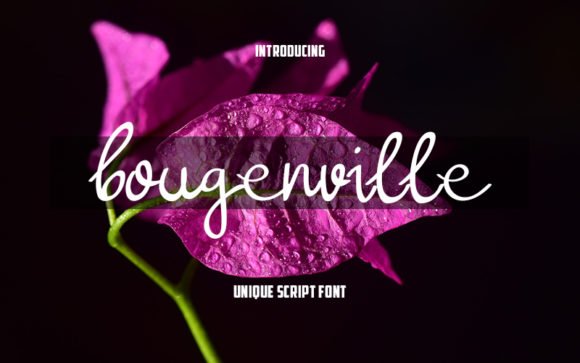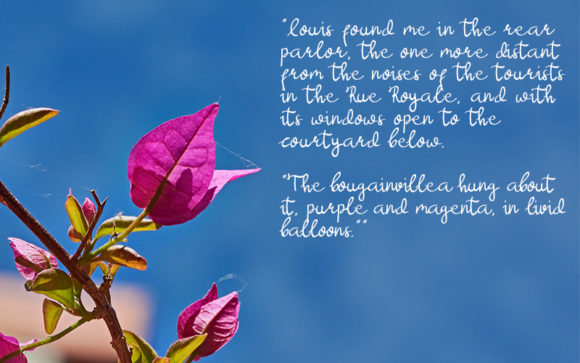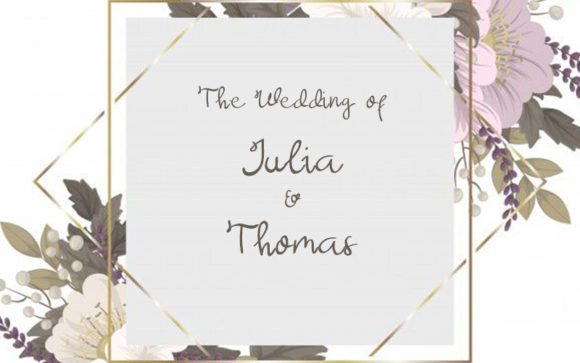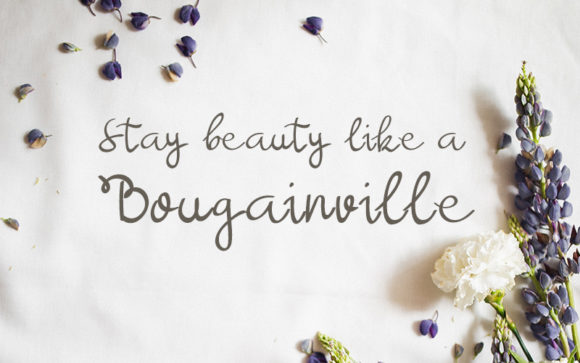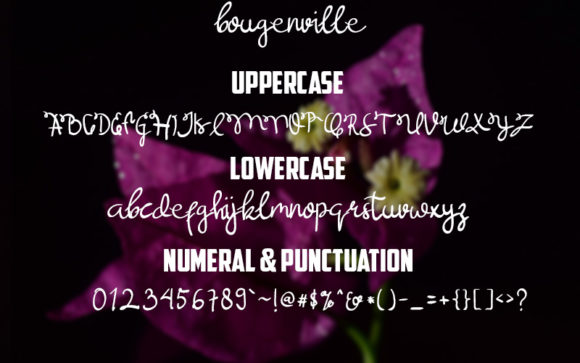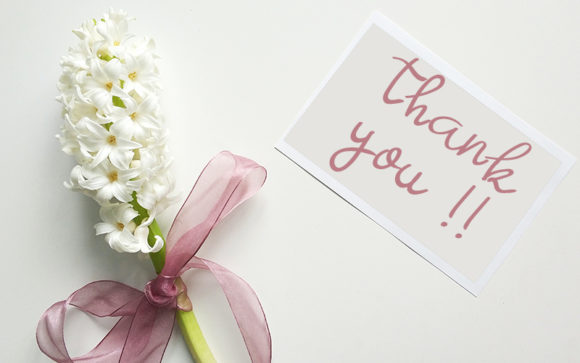
The Perfect Blend of Classic and Unique: Discovering the Bougenville Font
Have you ever been stuck in front of your computer, staring at a blank page, and wondering how to add some personality to your design? You’re not alone. As creatives, we’ve all been there, searching for that perfect font to bring our vision to life. It’s in these moments that we stumble upon something truly special – a font that speaks to us, and makes our design dreams a reality. For me, that font is the Bougenville Font, a beautiful, handwritten font that’s about to revolutionize the way you design.
Bougenville Font is more than just a font – it’s a statement piece. With its classic typography roots and unique style, it’s the perfect addition to any design project. Whether you’re working on a web design, print materials, or even moving images, Bougenville Font will elevate your work to the next level.
Bougenville Font Key Features
- Font Family: Bougenville is a unique, high-quality font family designed for various applications.
- Unique Characteristics: Bougenville features elegant, flowing lines, and subtle flair at the ends of strokes, giving it a distinctive and sophisticated appearance.
Bougenville Font Review
Overall, I think the Bougenville font is a great addition to any designer’s toolkit. It’s a beautiful script font that works well for
- Wedding invitations
- Branding materials
- Food and drink labels
✨ The flowing lines and elegant curves make it perfect for creating a sense of sophistication and romance.
The font is also very versatile and can be used for a variety of projects, from formal to casual. I particularly like the way it looks on
- Business cards
- Signage
- Menus
✨ The font is easy to read, even at small sizes, which is a major plus.
However, there are a few limitations to consider. For example, the font may not be the best choice for
- Headlines
- Bodies of text
- Text-heavy projects
⚠️ The font’s flowing lines can make it difficult to read at large sizes, and it’s not ideal for projects where clarity is key.
Overall, I would highly recommend the Bougenville font to any designer looking to add a touch of elegance to their projects. With its versatility and beautiful design, it’s a great choice for a wide range of applications.
Getting the Most Out of Bougenville Font
Use Bougenville Font to create a consistent brand identity by applying it to all your marketing materials. Pair the font with a clean and minimalist design to create a visually appealing look. Experiment with different font sizes and colors to add emphasis to your text.
Bougenville Font is ideal for use in creative industries, such as graphic design, fashion, and beauty. Use the font to create eye-catching headings and titles for product packaging, advertising, and marketing materials.
Alternatives to Bougenville Font
Carolyna Pro is a modern script font that combines elegance and sophistication. It’s perfect for designers who want to create a high-end, luxurious feel in their designs. When to use: branding, invitations, and wedding stationery. It compares to Bougenville Font in that both fonts have a similar elegant and feminine touch, but Carolyna Pro has a more refined and polished look.
Great Vibes is a beautiful script font that’s perfect for designers who want to add a touch of whimsy and playfulness to their designs. It’s ideal for use in social media graphics, advertising, and packaging. When to use: social media, advertising, and packaging. It compares to Bougenville Font in that both fonts have a similar relaxed and casual feel, but Great Vibes has a more carefree and spontaneous look.